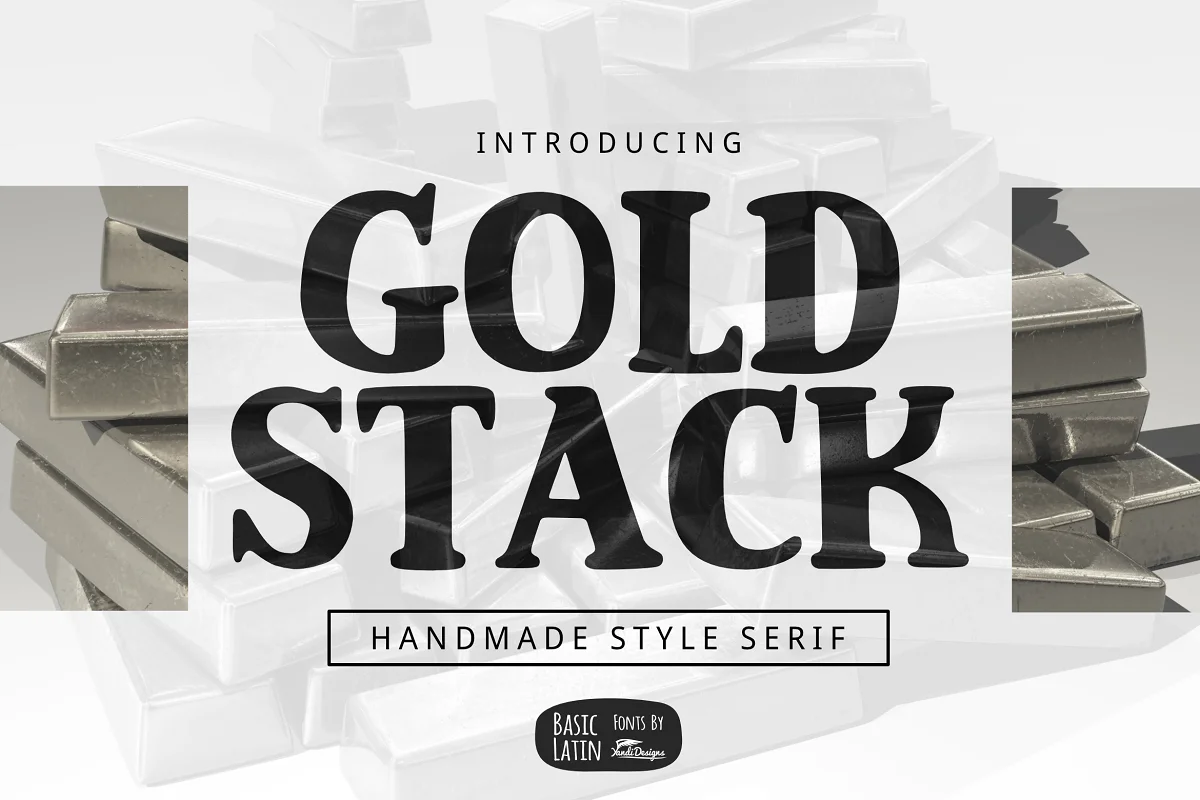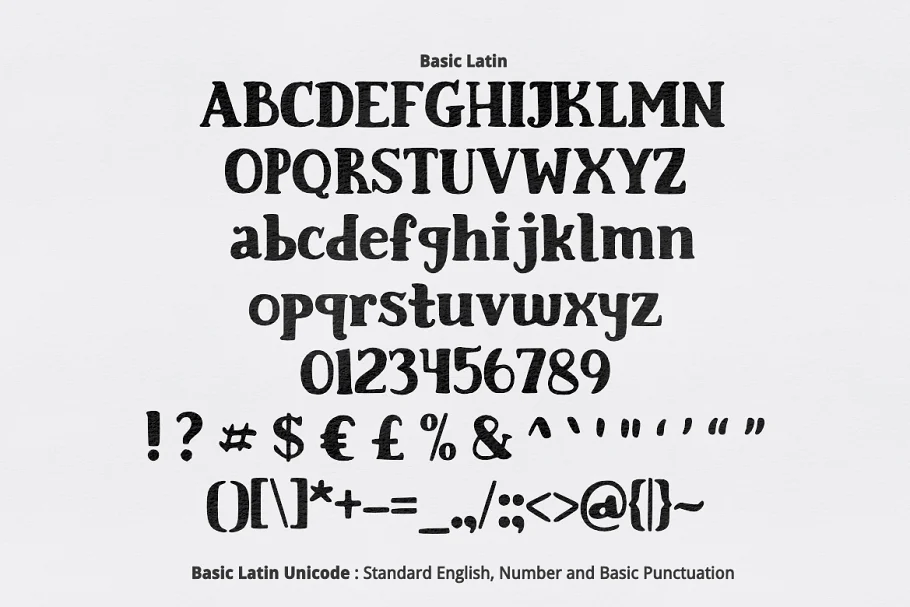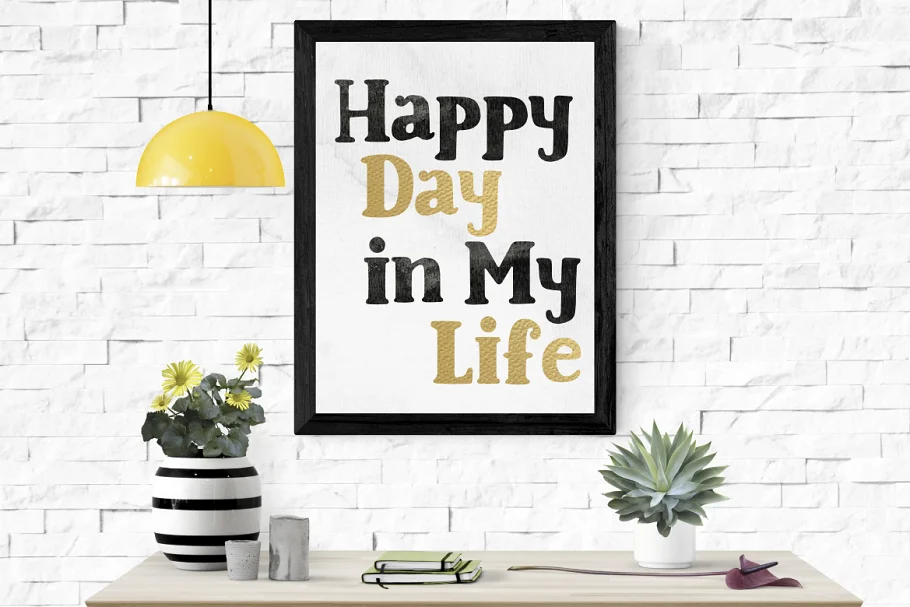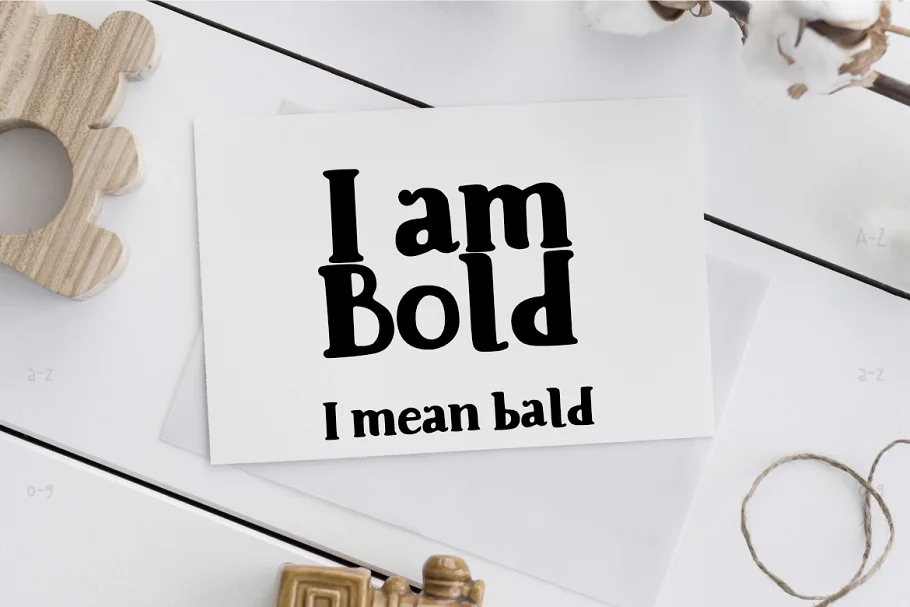
About the Gold Stack Serif Font
Gold Stack Serif Font is simple handmade style multipurpose serif font, suitable for many project children’s books, quotes, logo, heading, title, etc.